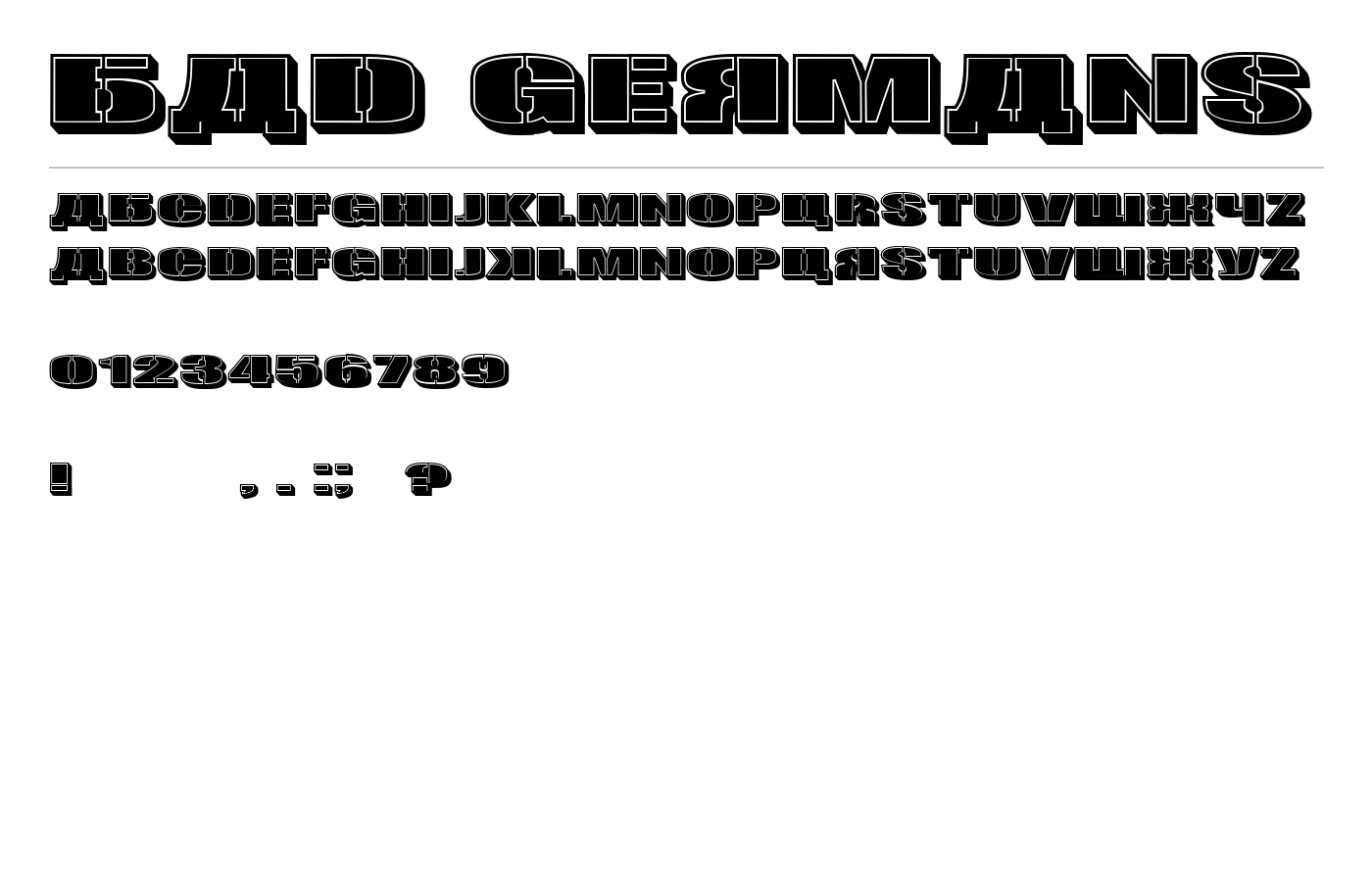
Bad Germans Font is a bold, decorative slab serif typeface featuring a strong, blocky structure with high contrast between filled and outlined areas that create a striking stencil-like effect. Its wide, heavy letterforms exude a vintage industrial feel, making it perfect for eye-catching headlines, posters, and branding that needs a rugged, retro character. This font works well when you want to convey boldness and a sense of toughness with a unique, artistic edge.
Bad Germans Font
About Bad Germans Font